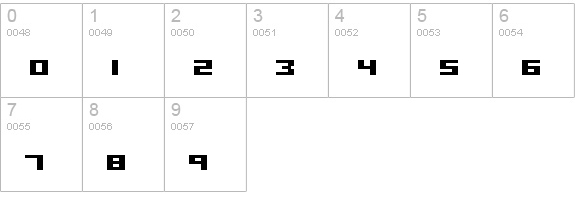
Acknowledge TT -BRK- Font Details
Acknowledge TT -BRK- is a modern and stylish font that exudes elegance and sophistication. Its sleek lines and sharp angles make it perfect for projects that require a contemporary touch. This font is versatile and can be used for various design purposes, from branding to marketing materials. What sets Acknowledge TT -BRK- font apart is that it is available for free download at FontsMarket.com. This means that you can access this high-quality font without any cost, making it a valuable resource for designers and creatives looking to elevate their projects without breaking the bank. With its clean and polished appearance, Acknowledge TT -BRK- font is sure to make a statement in any design project. Whether you're creating a logo, poster, or website, this font will help you achieve a professional and polished look. Download Acknowledge TT -BRK- font for free today and take your designs to the next level.